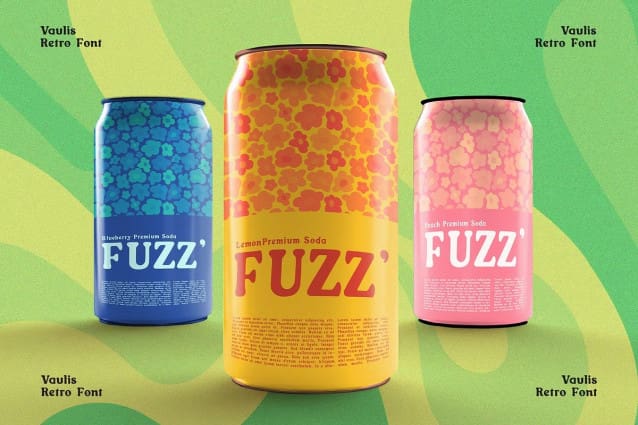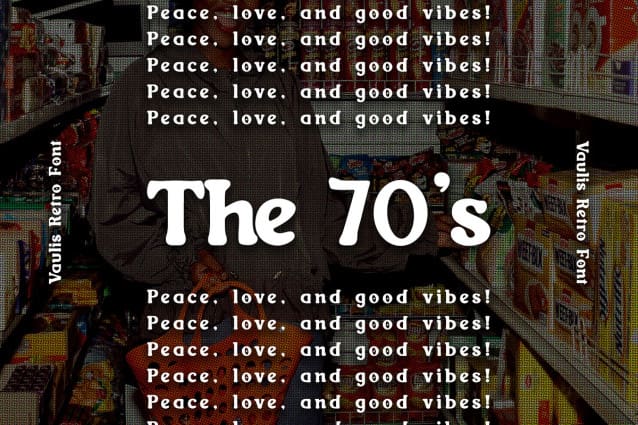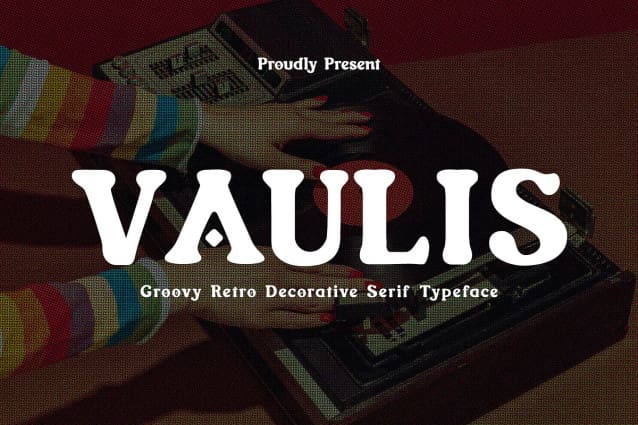
Vaulis Retro Font
Vaulis Retro Font is groovy serif font with a charm of retro and contemporary style. The serifs, the small strokes that finish off the main strokes of letters, are triangular and slightly flared, adding a touch of retro elegance without feeling overly formal. Vaulis Retro also includes many alternate characters, allowing you to customize the look and feel of your text and create unique typographic moments. Its retro-inspired shapes, playful ligatures, and contemporary sensibility make it a versatile and captivating choice for any design that wants to add a touch of personality and style.